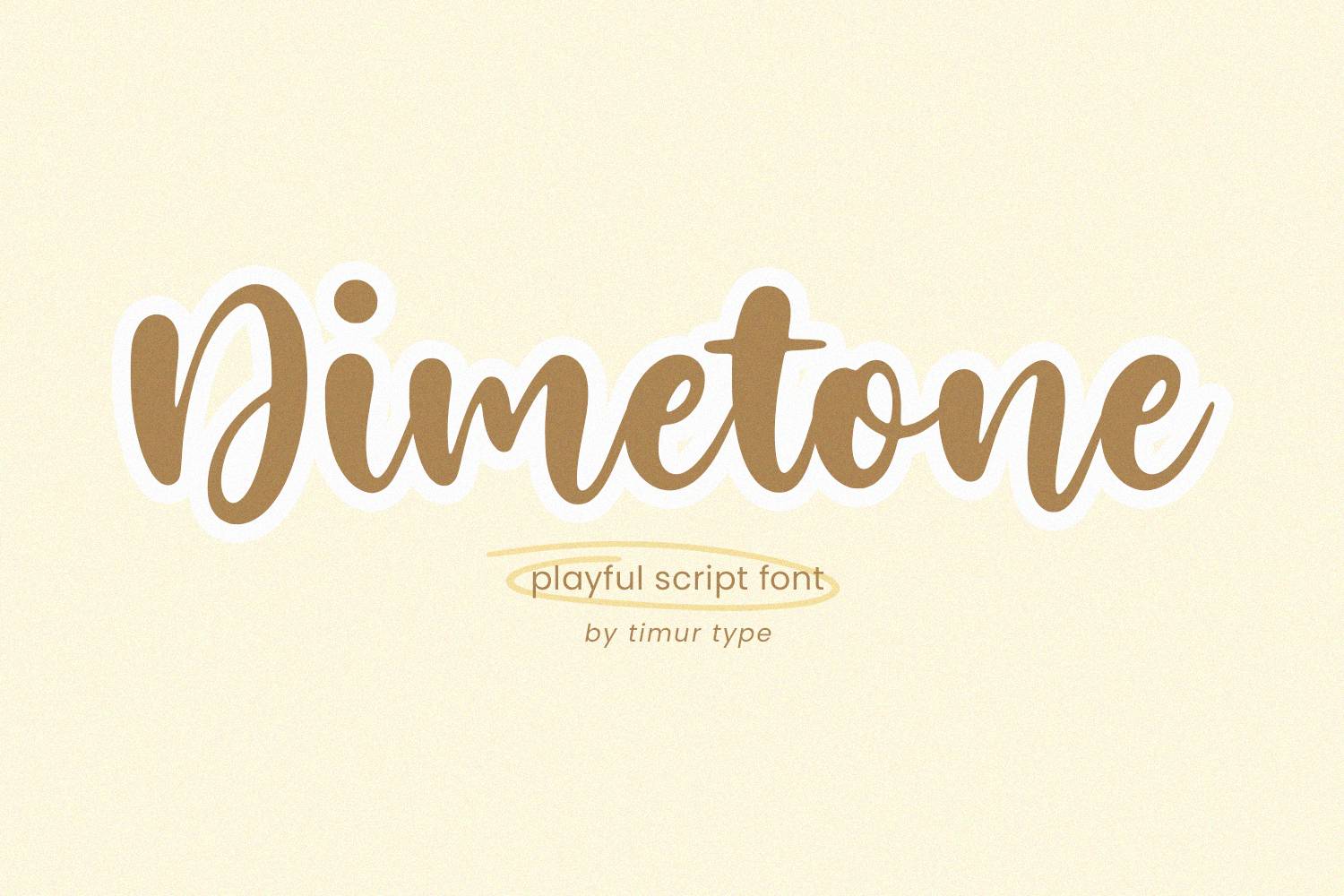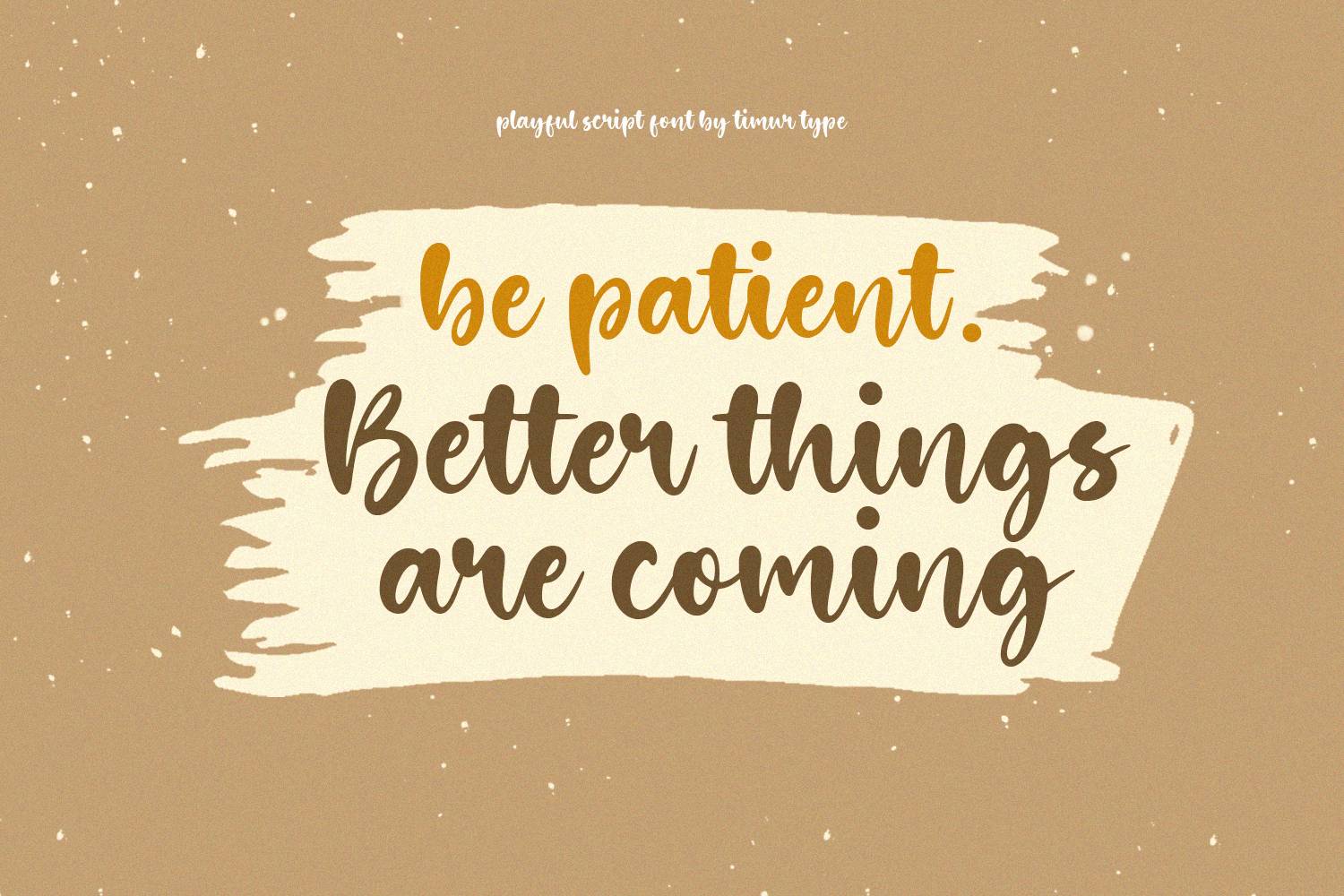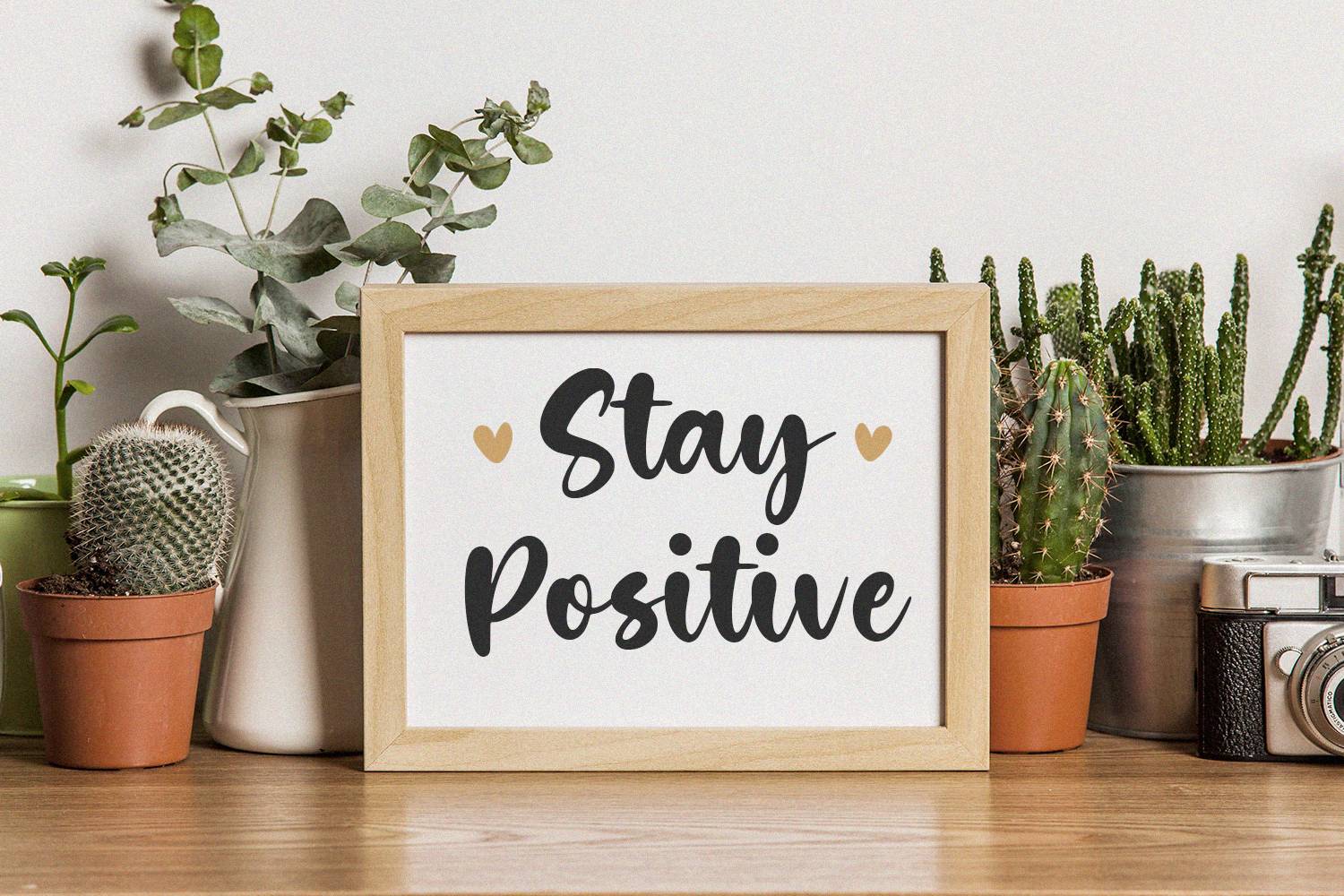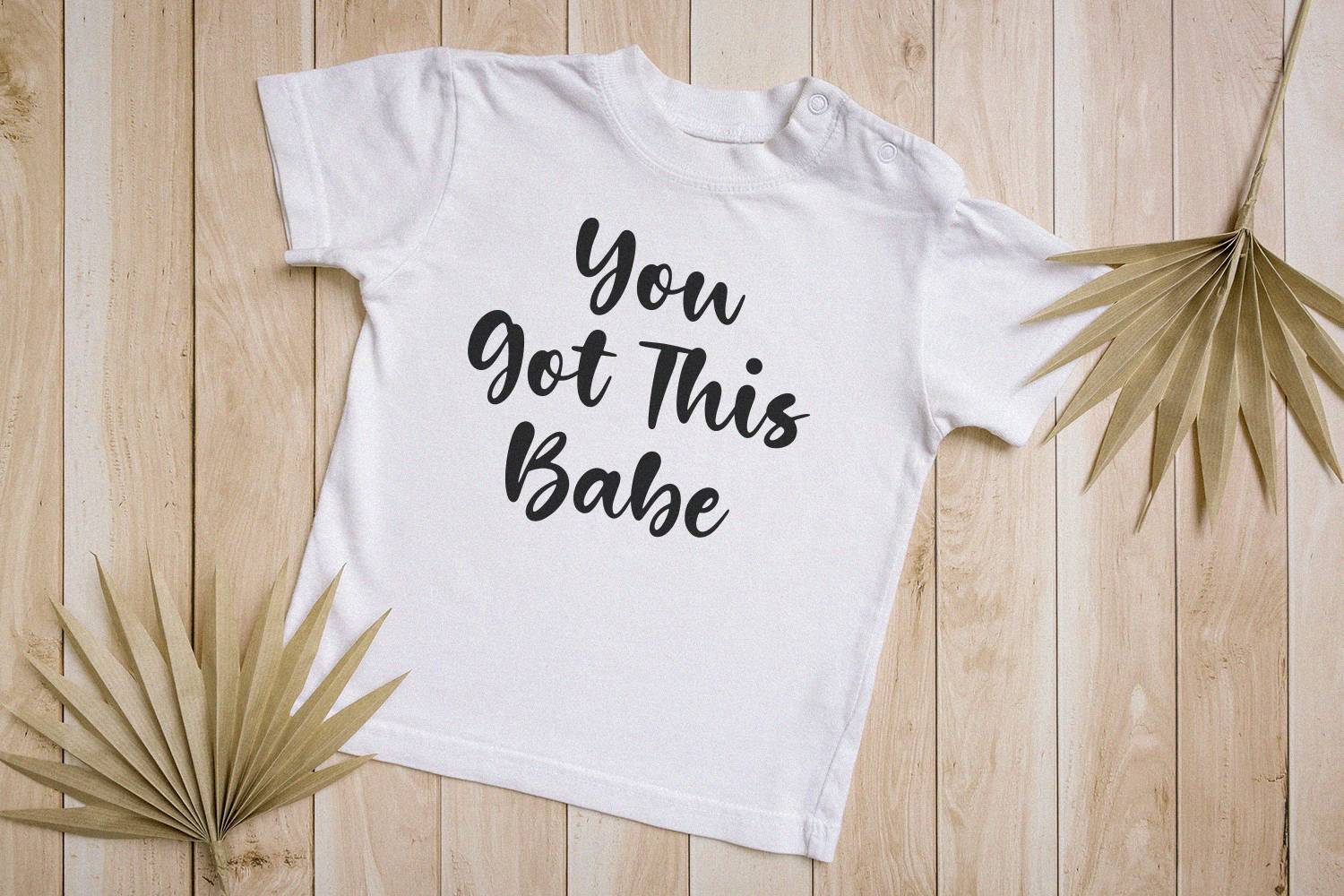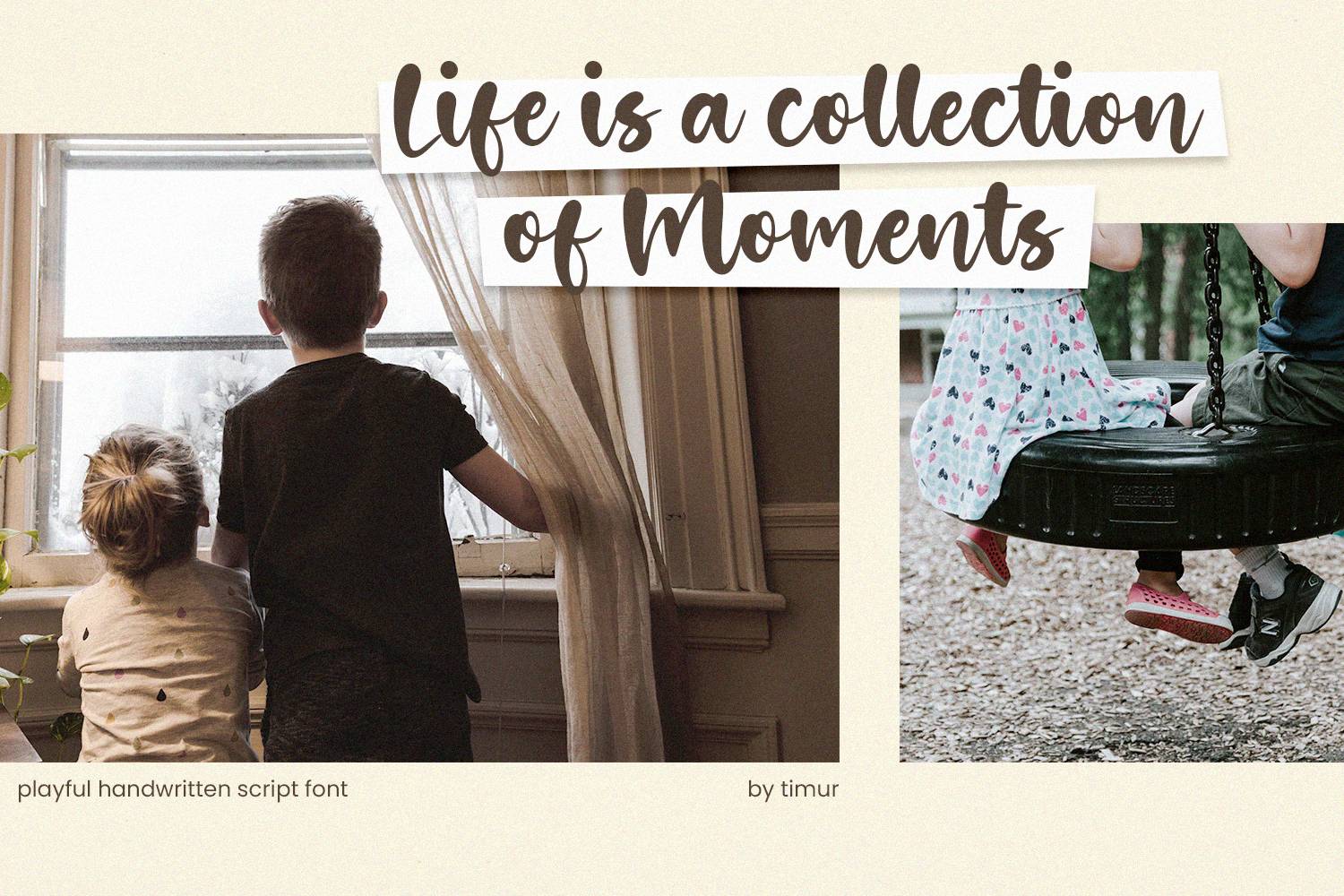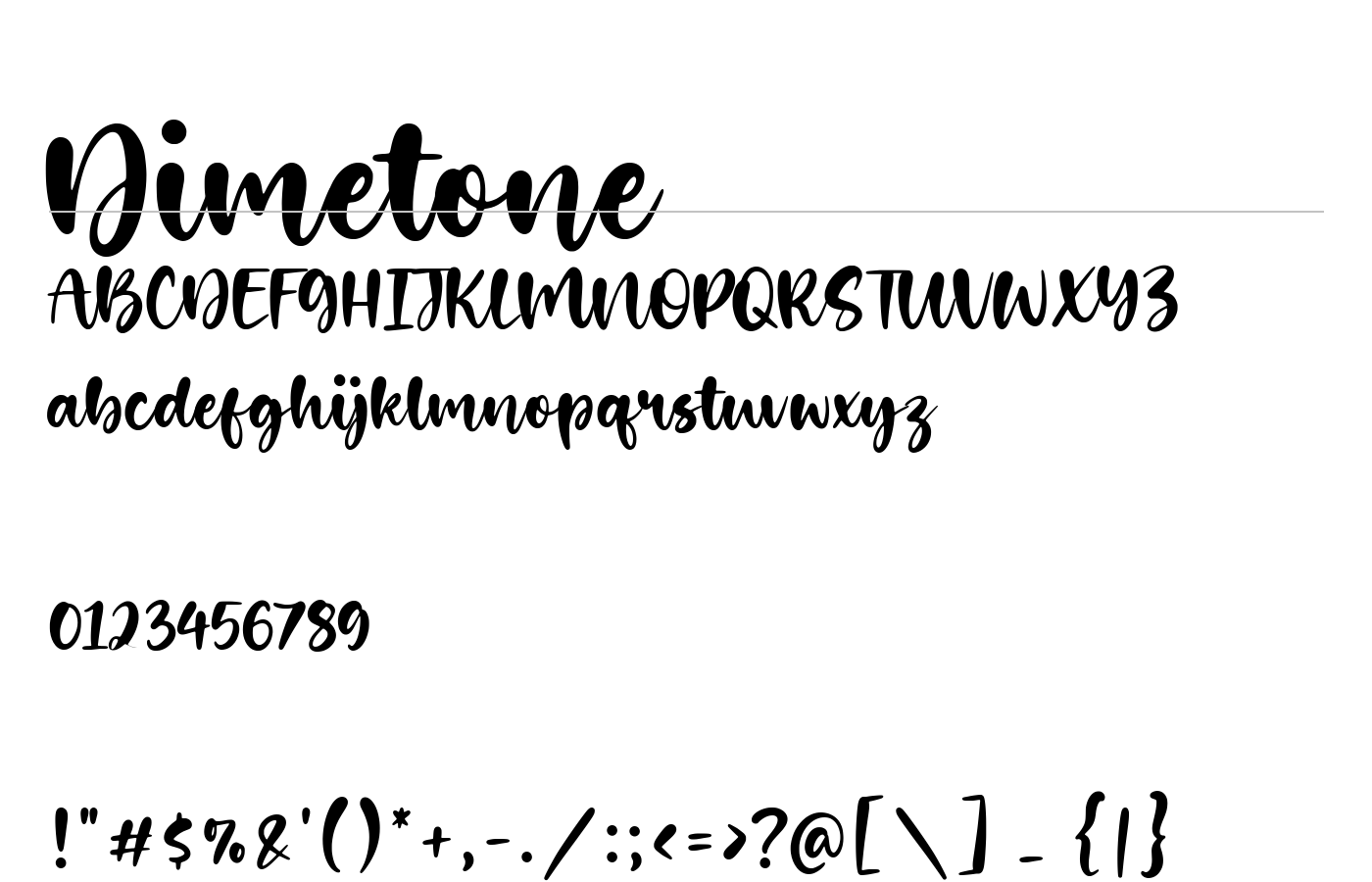
Dimetone is a lively, hand-lettered script font with a playful yet elegant feel, featuring smooth, slightly bouncy strokes that convey warmth and friendliness. Its moderate weight, casual letterforms, and well-balanced spacing make it ideal for creative branding, invitations, and lifestyle projects where a personal, approachable touch is desired. This font works beautifully in headlines, logos, and packaging, bringing a charming, handcrafted vibe to modern design.
Dimetone Font